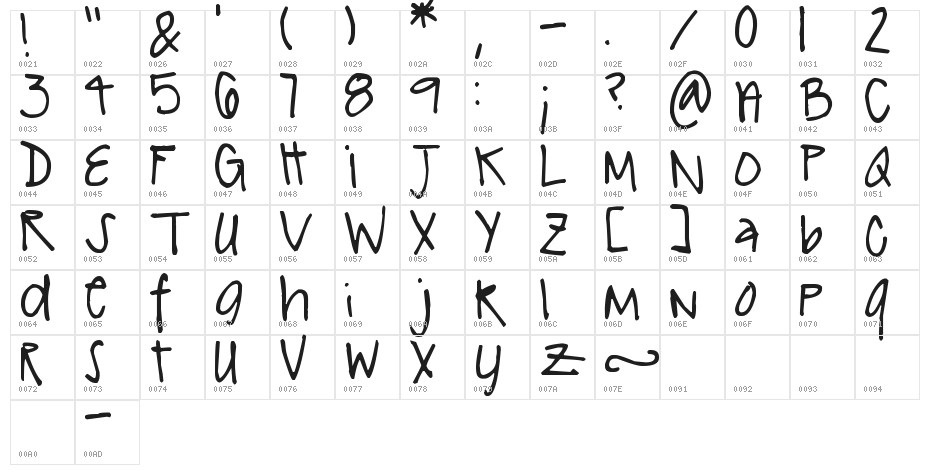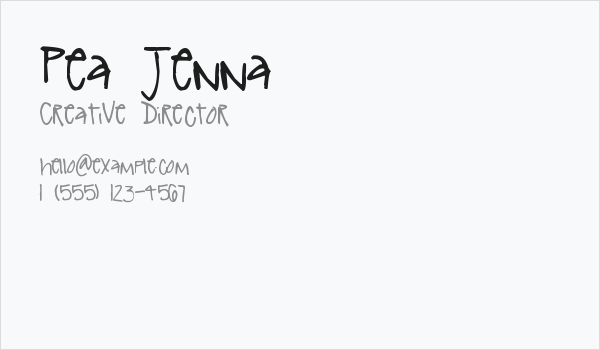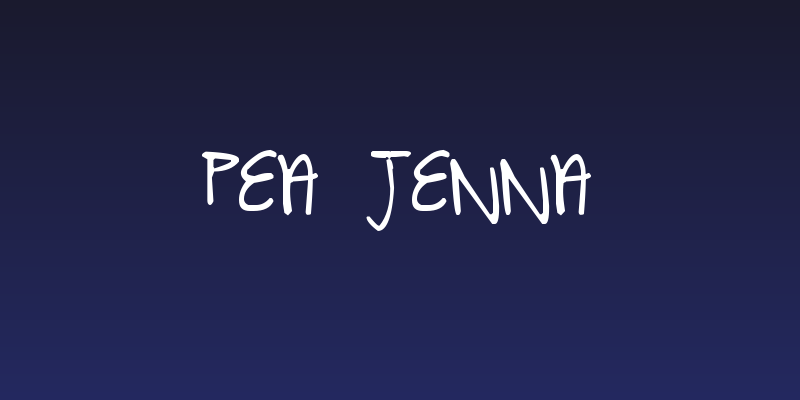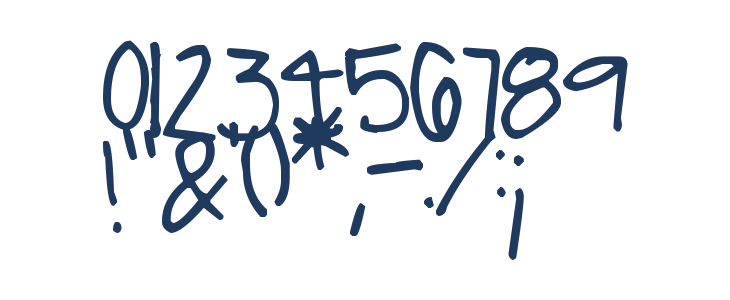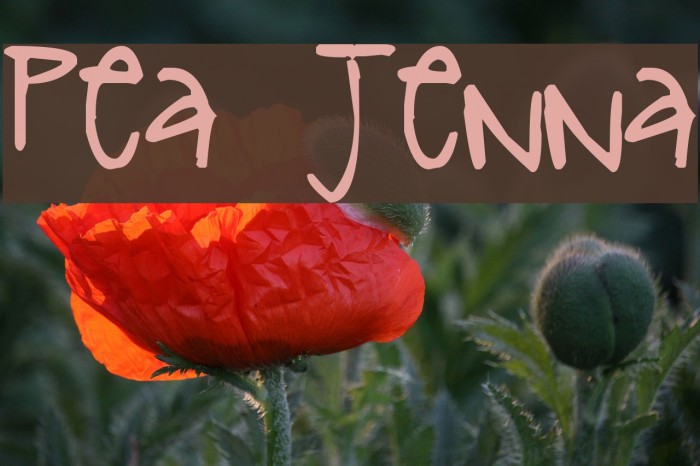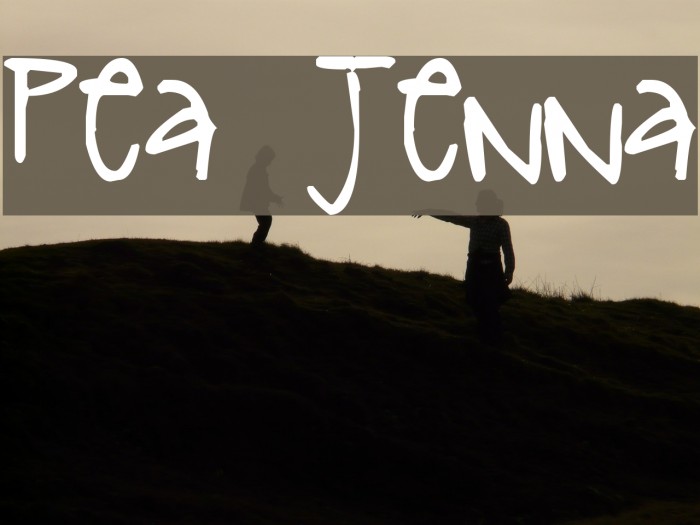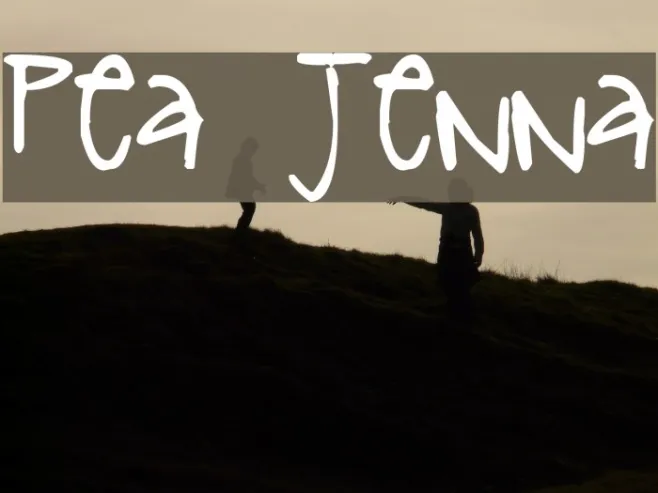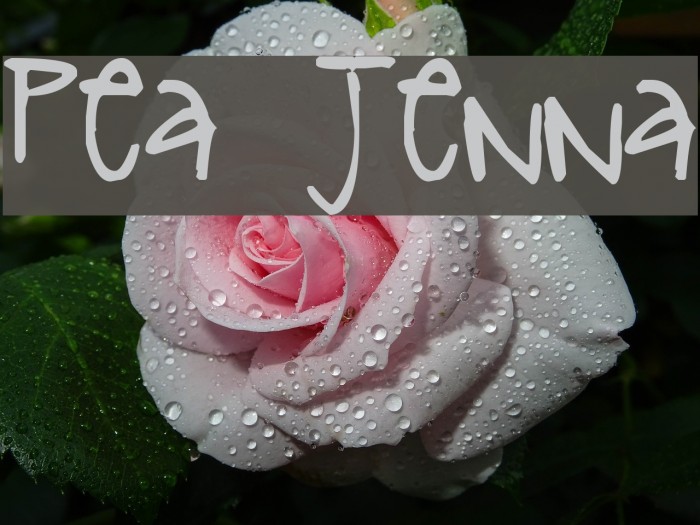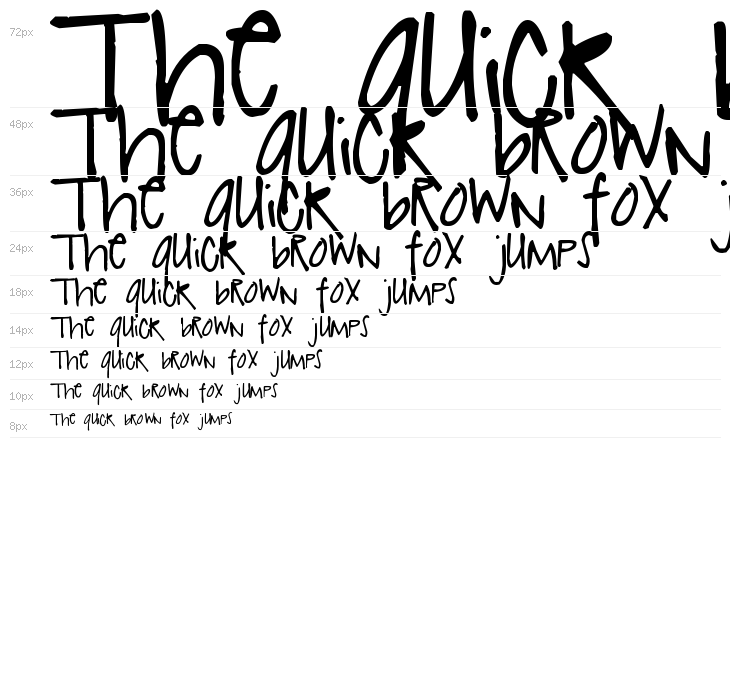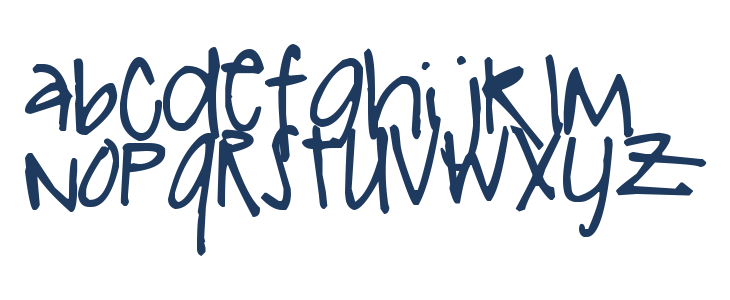
Pea Jenna Font
Pea Jenna Description
This playful and casual handwritten font features a lively and informal style, characterized by its uneven strokes and slightly tilted letters. The uppercase and lowercase letters maintain a consistent flow, with rounded edges and a natural, organic feel. The numbers and special characters complement the alphabet with a similar whimsical touch. This font exudes a sense of friendliness and approachability, making it ideal for projects that require a personal and human touch.
| Use Case | Greeting cards, Invitations, Creative branding |
| Proposed Projects | Ideal for personal invitations, greeting cards, children's books, and creative branding projects. |